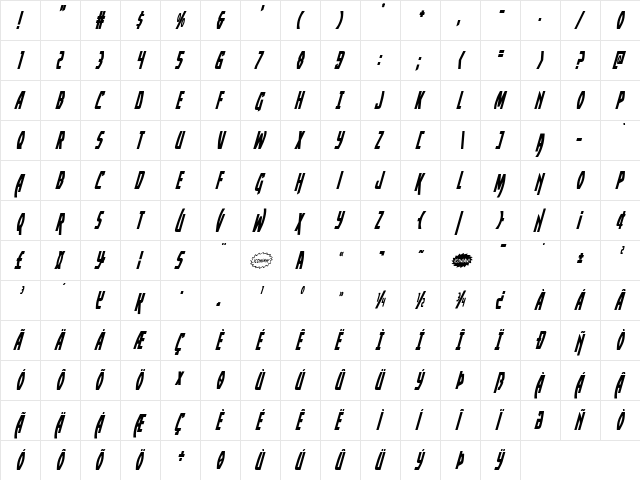
Yankee Clipper Condensed Italic Font Preview
Design Context for Yankee Clipper Condensed Italic Typeface
Yankee Clipper Condensed Italic takes a measured approach to typography — its balanced proportions and neutral character make it a reliable workhorse for both digital and print work. The slanted form adds forward momentum and visual energy. Its narrow stance lets it pack a punch even in space-constrained designs.
Pro Tip: Use Yankee Clipper Condensed Italic for emphasis, pull quotes, and subheadings where its slanted energy can add rhythm to the layout.